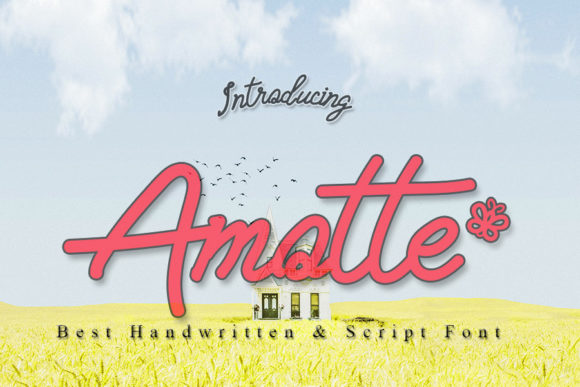
Introducing Amotte Font: The Exquisite Script Font for Unforgettable Creations
In a world of ordinary fonts, Amotte Font stands out as a beacon of elegance and charm. This exquisite script font, meticulously crafted by Slenting Art, is designed to bring a touch of sophistication and individuality to your creative projects. Whether you're a seasoned designer or a passionate hobbyist, Amotte Font is your gateway to a world of unique and captivating designs.
With its delicate strokes and graceful curves, Amotte Font evokes a sense of nostalgia and romance. It's a font that speaks to the heart, inspiring you to create designs that are both visually stunning and emotionally resonant. Whether you're crafting wedding invitations, thank-you cards, or eye-catching logos, Amotte Font will elevate your designs to new heights of beauty and sophistication.
More than just a font, Amotte is an experience. It's a font that invites you to explore your creativity and express yourself in ways you never thought possible. Its versatility knows no bounds, allowing you to create designs that are both personal and universally appealing. From heartfelt greeting cards to stylish branding materials, Amotte Font empowers you to make a lasting impression on your audience.
So, embark on a creative journey with Amotte Font and unlock a world of possibilities. Let its enchanting charm captivate your audience and create designs that leave an enduring legacy.